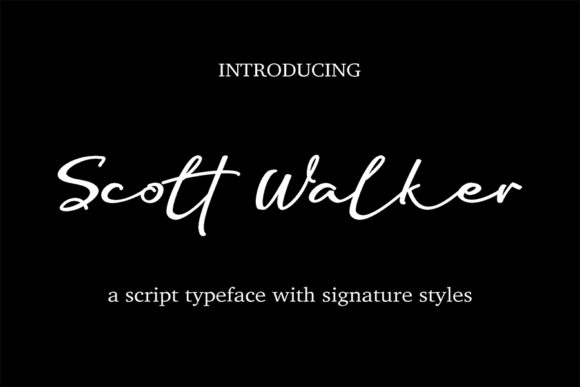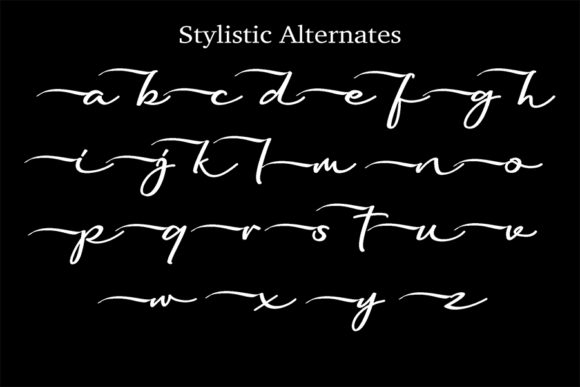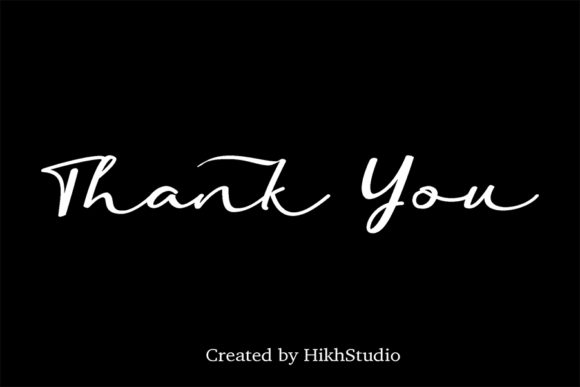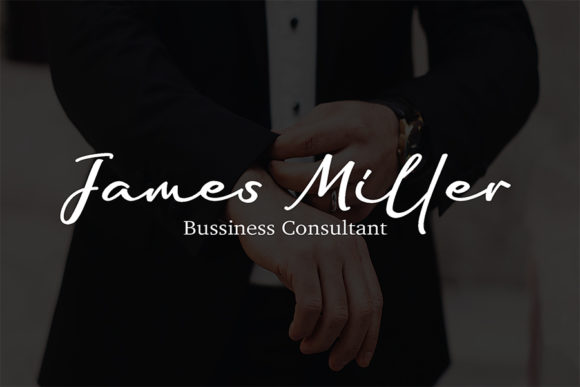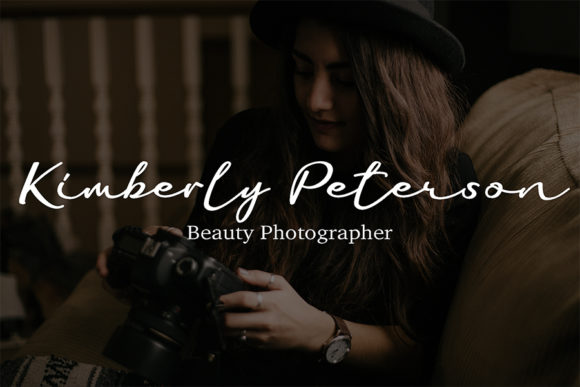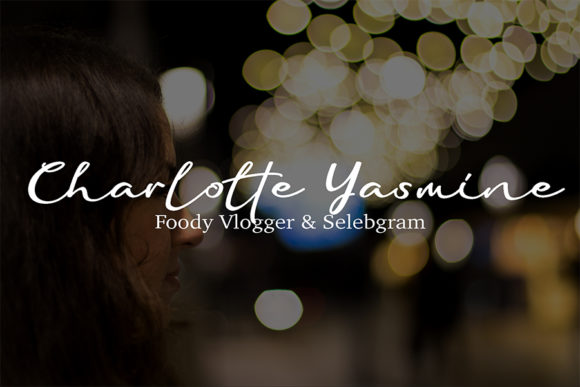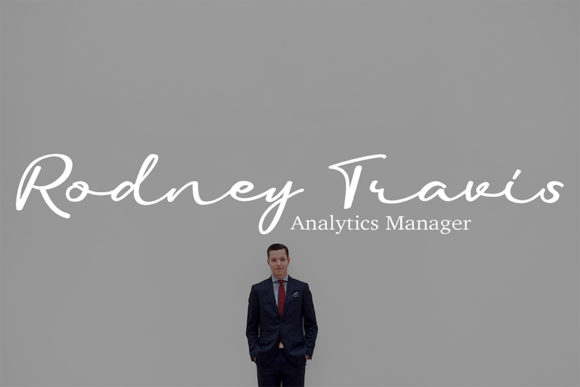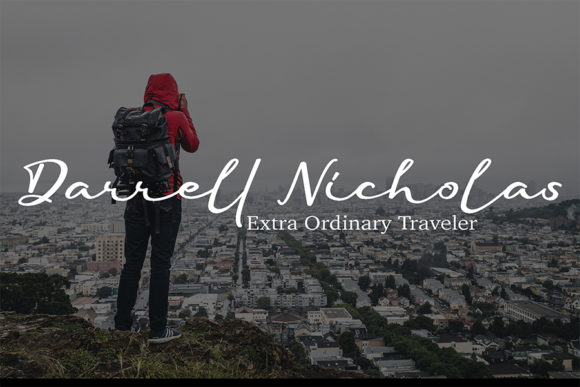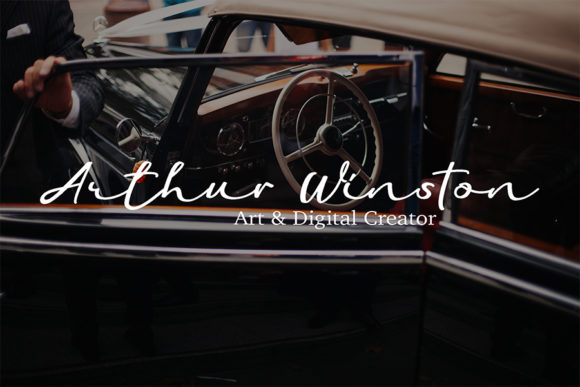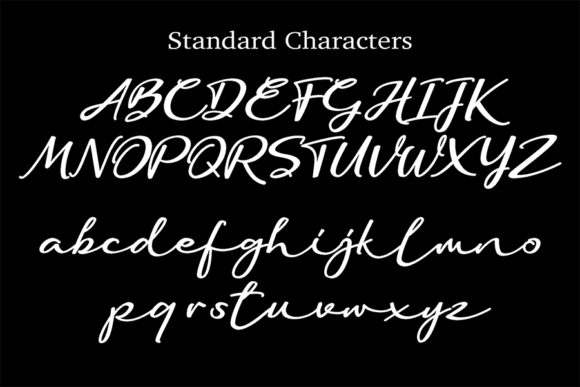
Scott Walker Font
About Scott Walker Font
Scott Walker is a sophisticated script font. Fall in love with its luxurious feel and use it to create gorgeous wedding invitations, eye-catching signature logos, and cute wedding invitations.